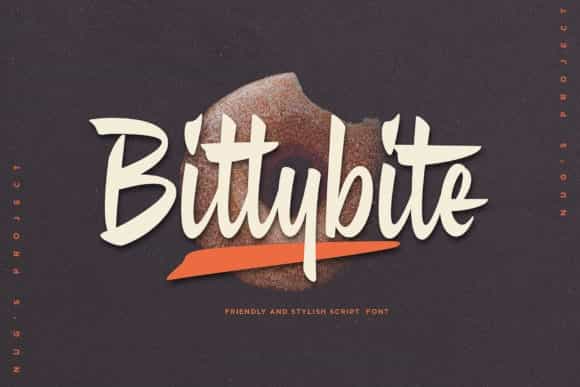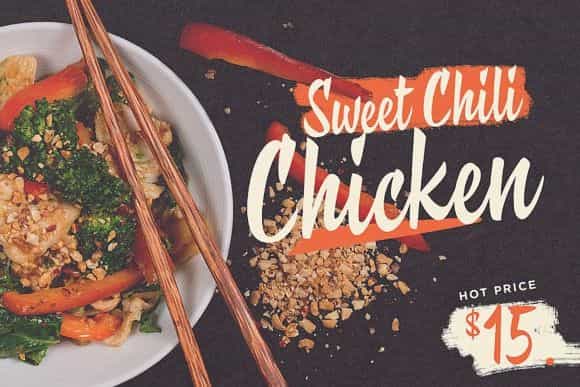
Bittybite is a handwritten script typeface with a lovely character, and a multi-purpose font. Bittybite can be utilized entirely as a signage, poster, brand identity, advertising etc. Bittybite font contains plenty of uppercase and lowercase letters, multi-language support, numbers, punctuation, ligatures, alternatives.